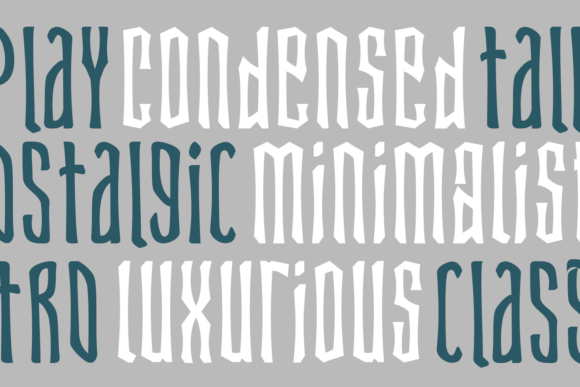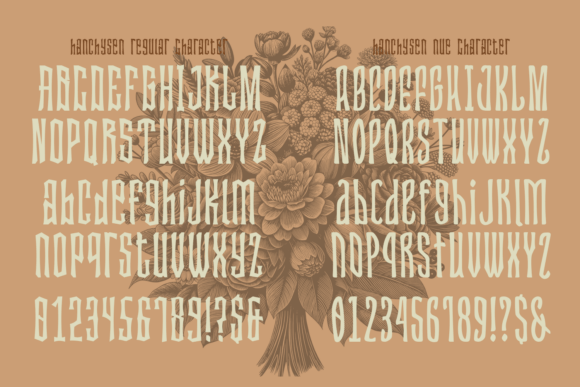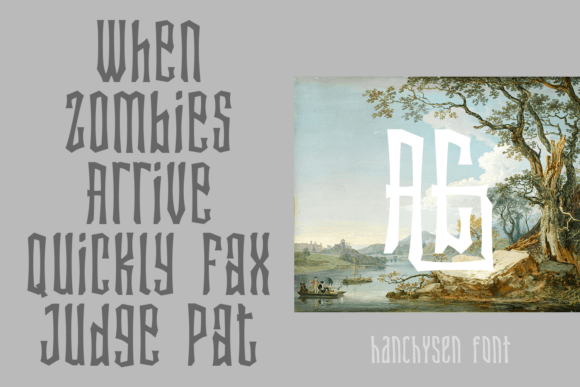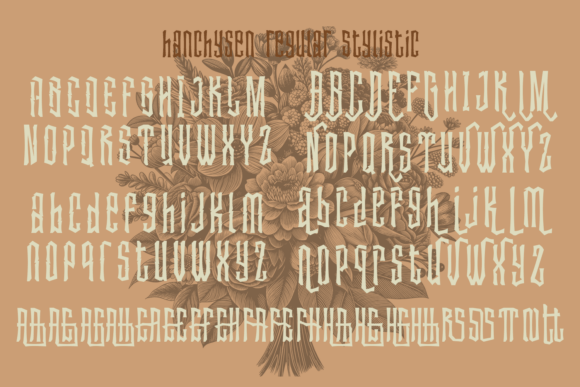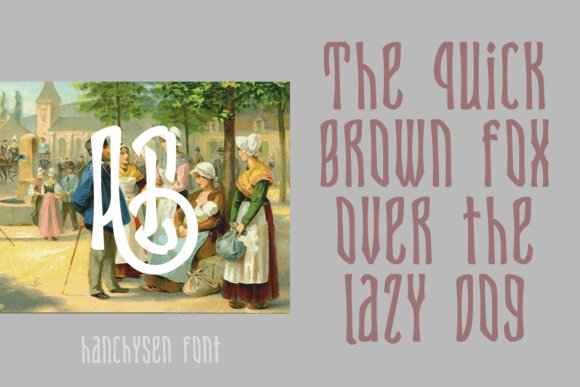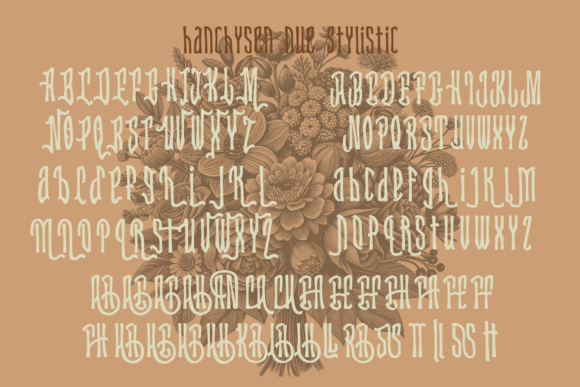
Introducing Hanckysen: The Striking Decorative Display Font
In the world of typography, a font can make all the difference in capturing the essence of a design. Hanckysen, a classic yet modern decorative display font, is here to revolutionize your creative projects. With its tall, narrow structure and elongated letterforms, Hanckysen instantly commands attention and exudes a sense of elegance and sophistication.
A Unique Blend of Old-World Charm and Modern Edge
Hanckysen’s design is characterized by sharp edges and subtle vintage undertones, which blend seamlessly with a modern, edgy twist. This distinctive look makes it perfect for designers seeking a font that is both memorable and timeless. The refined curves and balanced spacing of Hanckysen ensure that it remains stylish and legible, even at larger font sizes.
Ideal for a Variety of Creative Projects
Hanckysen’s versatility makes it an excellent choice for a wide range of applications, including:
- Posters and Bold Headlines: Hanckysen’s striking appearance makes it perfect for creating eye-catching posters and headlines that demand attention.
- Branding: The font’s unique blend of classic and modern elements makes it an excellent choice for brands seeking to establish a distinctive identity.
- Apparel: Hanckysen’s bold and expressive tone makes it ideal for use on clothing, accessories, and other wearable items.
- Packaging: The font’s elegant yet edgy design makes it perfect for packaging designs that require a touch of sophistication and style.
What Sets Hanckysen Apart
Hanckysen’s unique characteristics make it stand out from other decorative display fonts:
- Elongated Letterforms: Hanckysen’s tall, narrow letterforms create a sense of drama and elegance.
- Sharp Edges: The font’s sharp edges add a touch of modernity and sophistication.
- Subtle Vintage Undertones: Hanckysen’s vintage undertones evoke a sense of nostalgia and classic charm.
- Balanced Spacing: The font’s refined curves and balanced spacing ensure that it remains stylish and legible.
Why Choose Hanckysen?
For designers and crafters seeking a font that is both stylish and memorable, Hanckysen is the perfect choice. Its unique blend of old-world charm and modern edge makes it an excellent addition to any design project. With Hanckysen, you can:
- Elevate Your Designs: Hanckysen’s bold and expressive tone takes your designs to the next level.
- Establish a Distinctive Identity: The font’s unique characteristics make it an excellent choice for brands seeking to establish a memorable identity.
- Save Time: Hanckysen’s versatility and legibility make it easy to use and adapt to different design applications.
Hanckysen is a striking decorative display font that is sure to make a statement in any design project. Its unique blend of classic and modern elements, combined with its versatility and legibility, make it an excellent choice for designers and crafters. Whether you’re working on a poster, branding project, or packaging design, Hanckysen is the perfect font to elevate your creative work and leave a lasting impression.